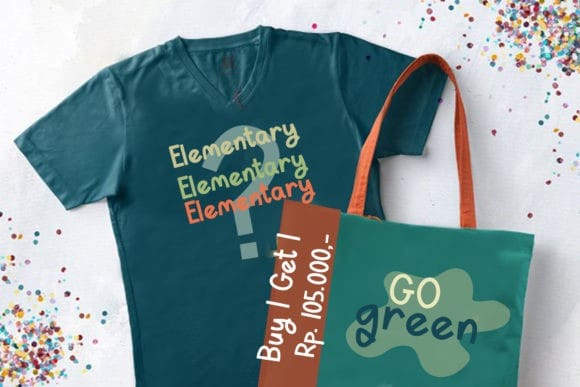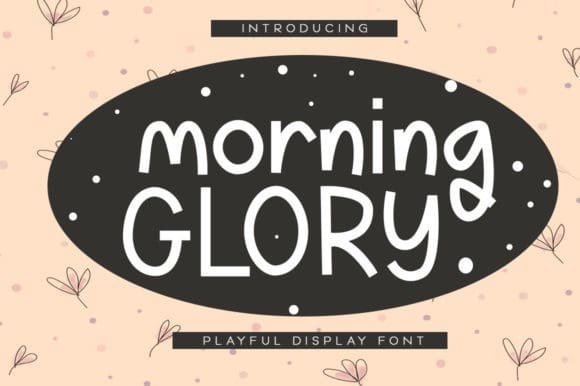
Morning Glory Font
Morning Glory Font is a fun and quirky handwritten font with a unique style, playful look & feel embodies fun. Enjoy this font and make more beautiful your product.